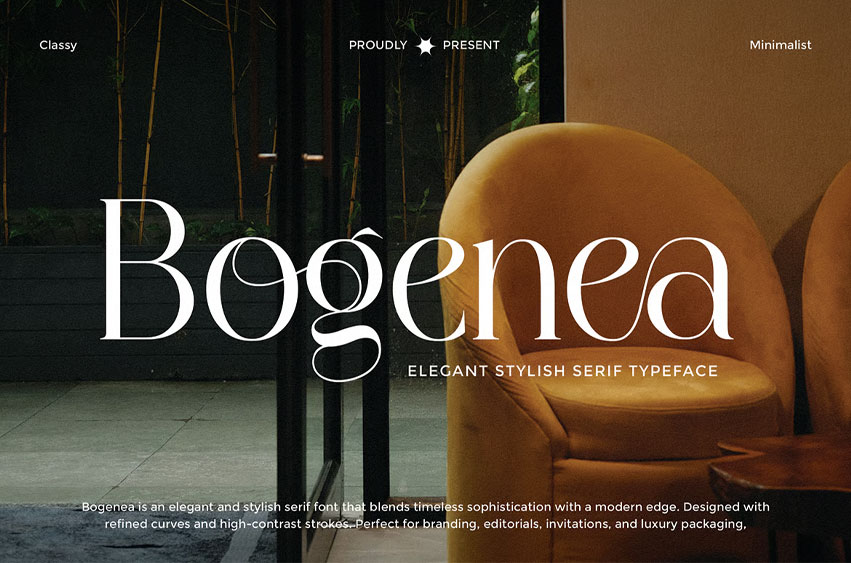
Bogenea Font
Bogenea Font: Bring elegance and sophistication to your creative work with Bogenea, a refined serif font crafted for designers who seek timeless beauty and high readability. Perfectly balanced between modern style and classic charm, Bogenea offers a luxurious visual tone that elevates branding, editorial layouts, social media graphics, presentations, and more.
Whether you’re designing a high-end fashion magazine, a professional pitch deck, a wedding invitation, or a minimalist brand identity, Bogenea brings graceful character with subtle details that make every letter look intentional and stylish.